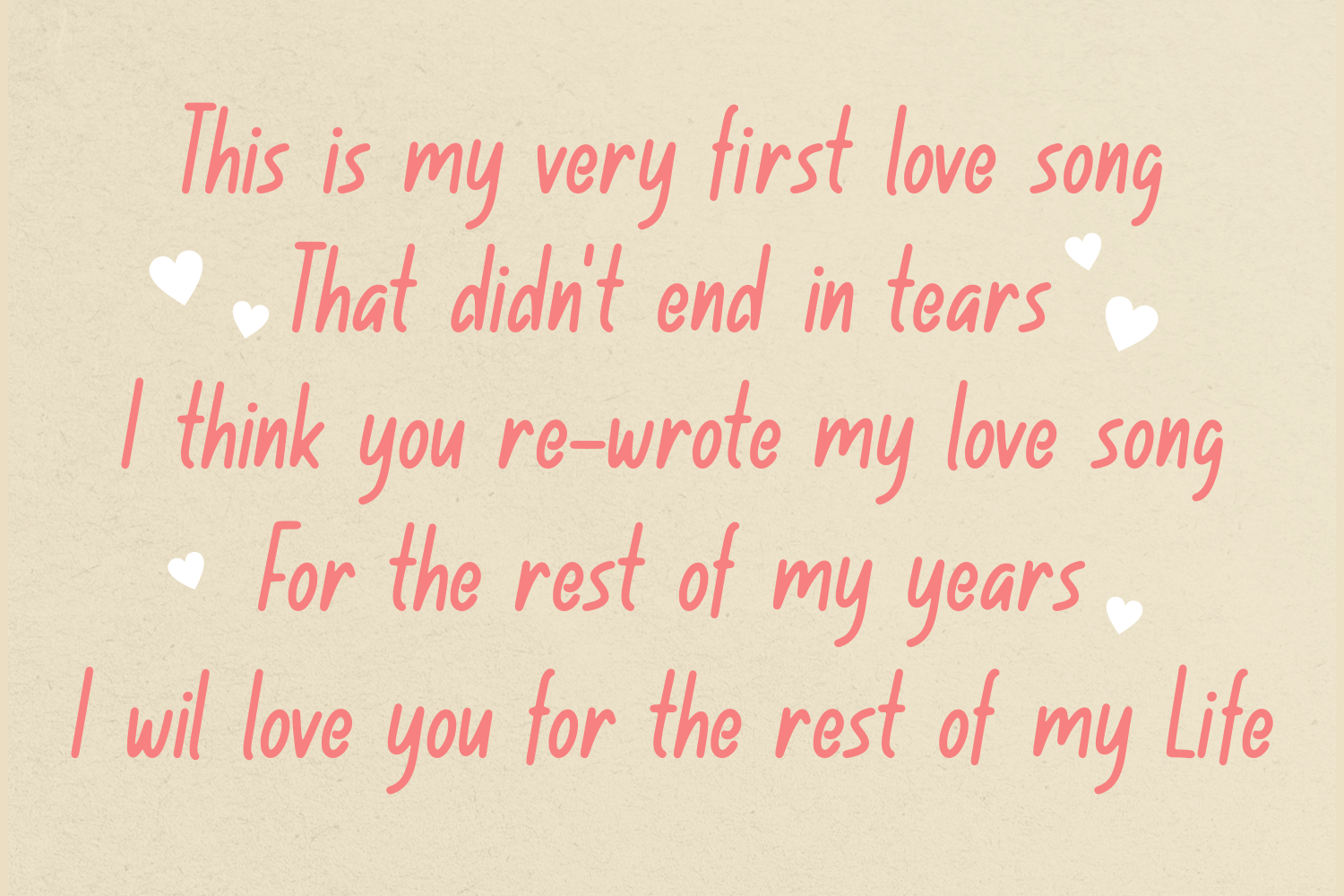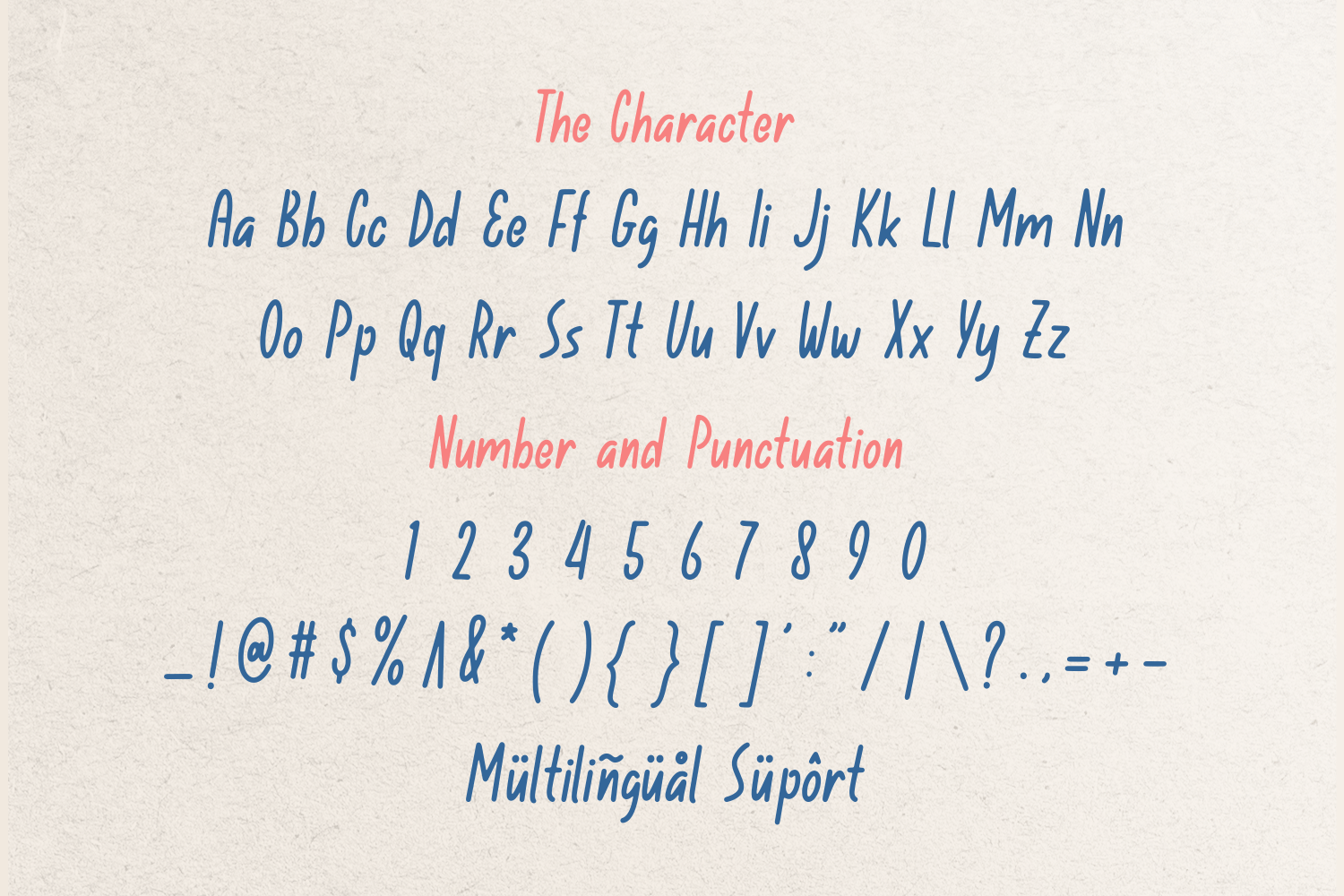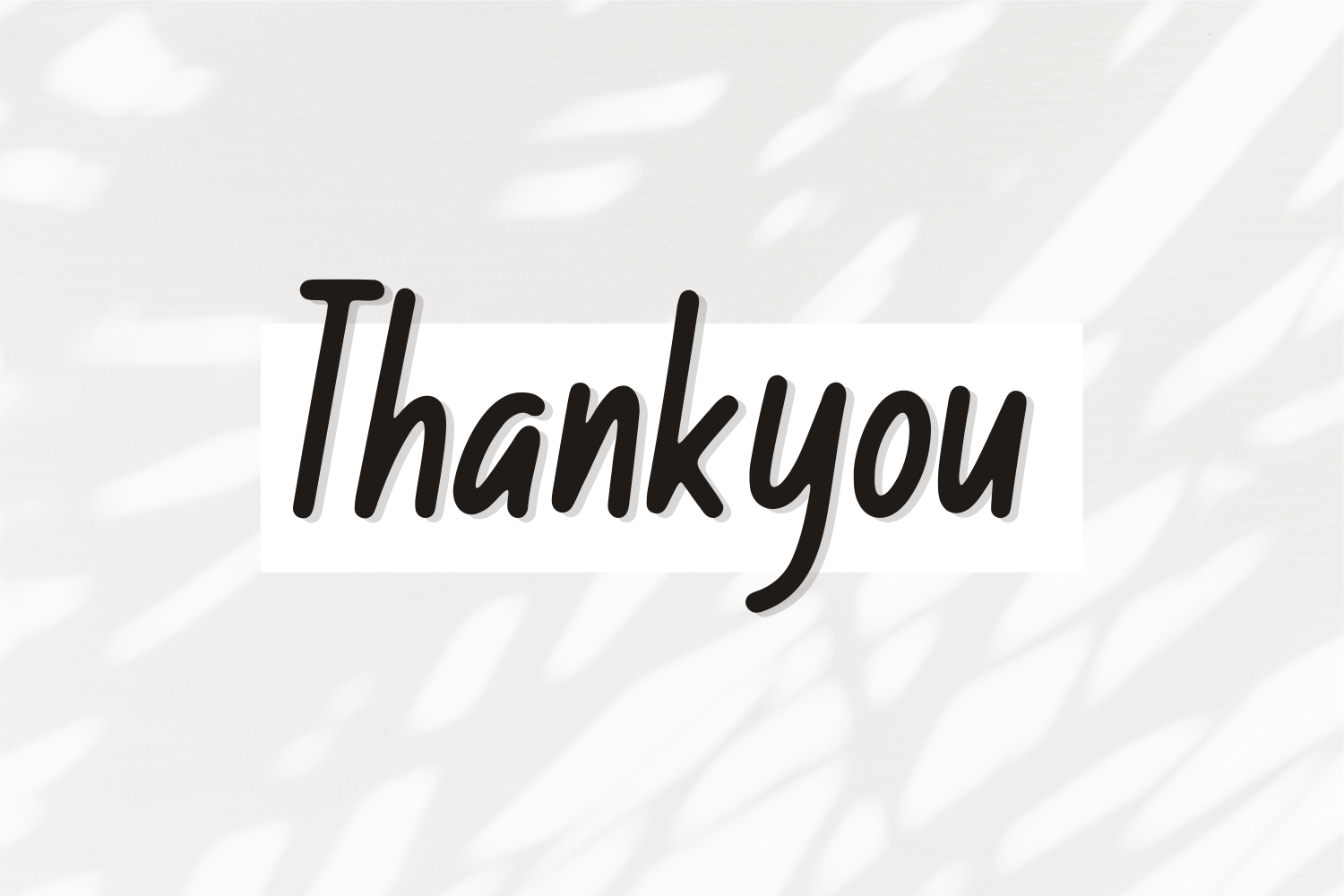
Sutrisnice Font
Sutrisnice Display Font is a fancy and elegant handcrafted font that was created to impress your audience and make your branding shine. Make your projects dance with this elegant and wonderful font wherever you use it.